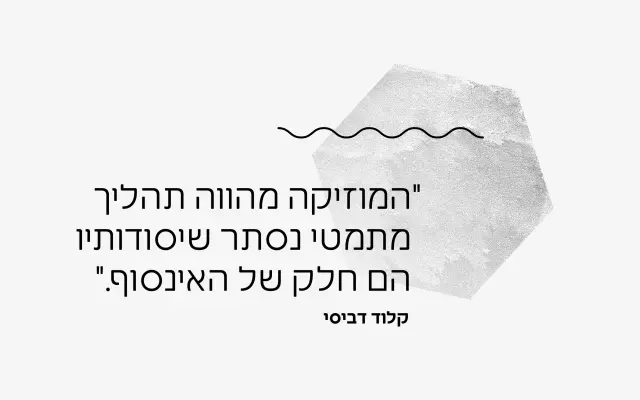
Greycliff Hebrew CF
A geometric sans-serif that extends the soft, rounded forms of Greycliff CF into the Hebrew script, covering nine weights with full diacritics and cantillation marks alongside Latin.
Designed to function as a self-contained bilingual type system, Greycliff Hebrew CF pairs Hebrew and Latin glyphs drawn to complement one another in weight and optical rhythm across nine styles from Thin to Heavy. The Hebrew coverage includes diacritics, cantillation marks and wide language support across the script. Latin support extends to a broad range of European languages via extensive diacritic coverage.
A geometric sans-serif sharing the soft rounded construction of the original Greycliff CF, extended to cover the Hebrew script alongside Latin with full diacritics and cantillation marks.